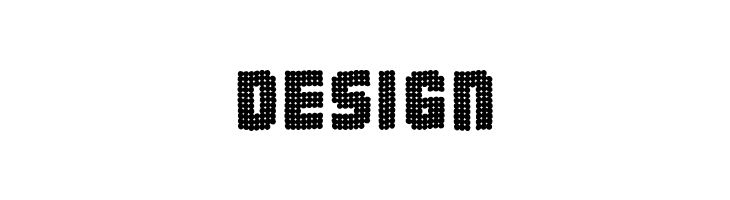
Punch Condensed Semi-Italic Font
- Font: Punch Condensed Semi-Italic
A bold, dotted font with a playful and decorative style.
( Fonts by Rick Mueller )